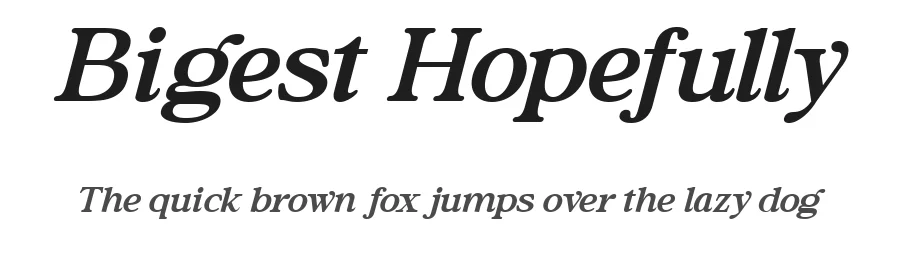
About Mogella Font
Mogella ships with 1 OpenType feature you can switch on in apps that support them (Illustrator, InDesign, Affinity, Figma, CSS font-feature-settings).
Mogella supports 209 languages.
Mogella Font is a versatile serif font that works for both headings and body text. Pair it with a contrasting sans-serif or slab serif font to add visual interest and a clear distinction between titles and body copy.